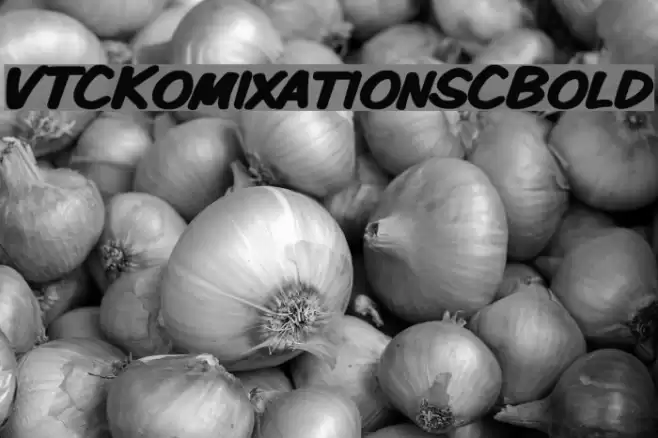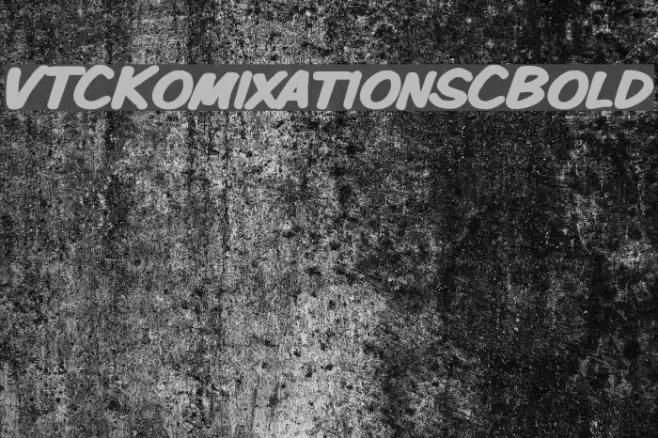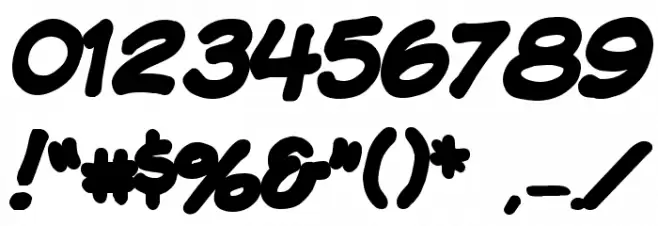
VTCKomixationSCBold Font
VTCKomixationSCBold Description
This font features a bold and playful style with a handwritten appearance, characterized by thick, rounded strokes and a slightly slanted orientation. The letters are closely spaced, creating a cohesive and energetic look. The uppercase and lowercase characters maintain a consistent style, with the lowercase letters slightly smaller yet equally bold. The numerals and special characters follow the same design principles, ensuring uniformity across all glyphs. This font's dynamic and informal nature makes it suitable for projects that require a fun and engaging visual impact.
A bold, playful handwritten font with thick, rounded strokes and a slightly slanted orientation from Uncategorized fonts.
- Proposed Projects: Ideal for comic books, children's books, playful branding, and casual invitations.
- Character Spacing: Tight
- Overall Style: Playful